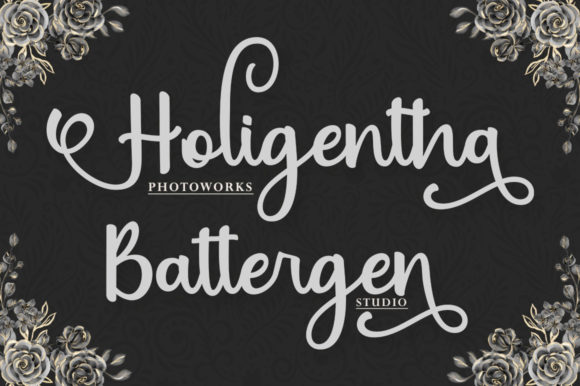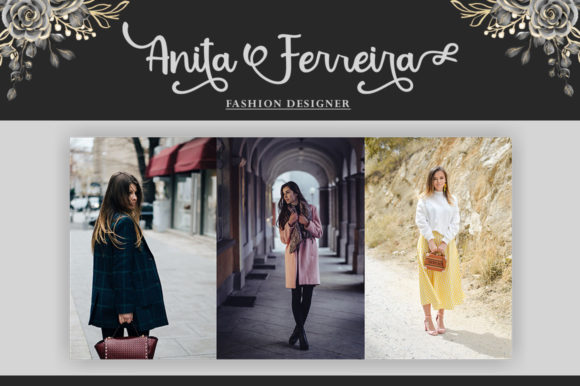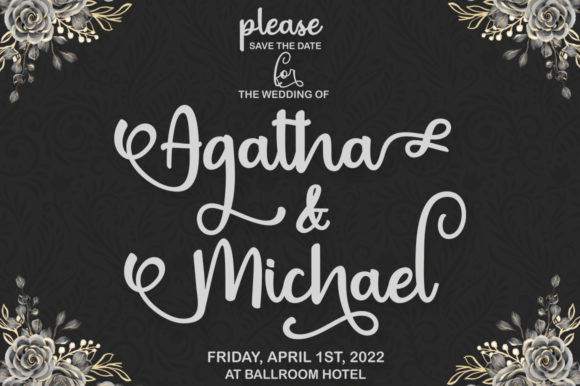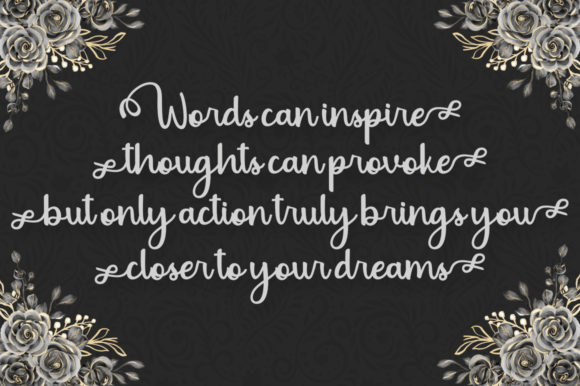
About Arteliria Script Font
Arteliria Script is a beautiful, well balanced and vintage styled script font. It is defined by smooth curves and is perfect for fashion branding or editorial designs. This font is PUA encoded which means you can access all of the glyphs and swashes with ease!